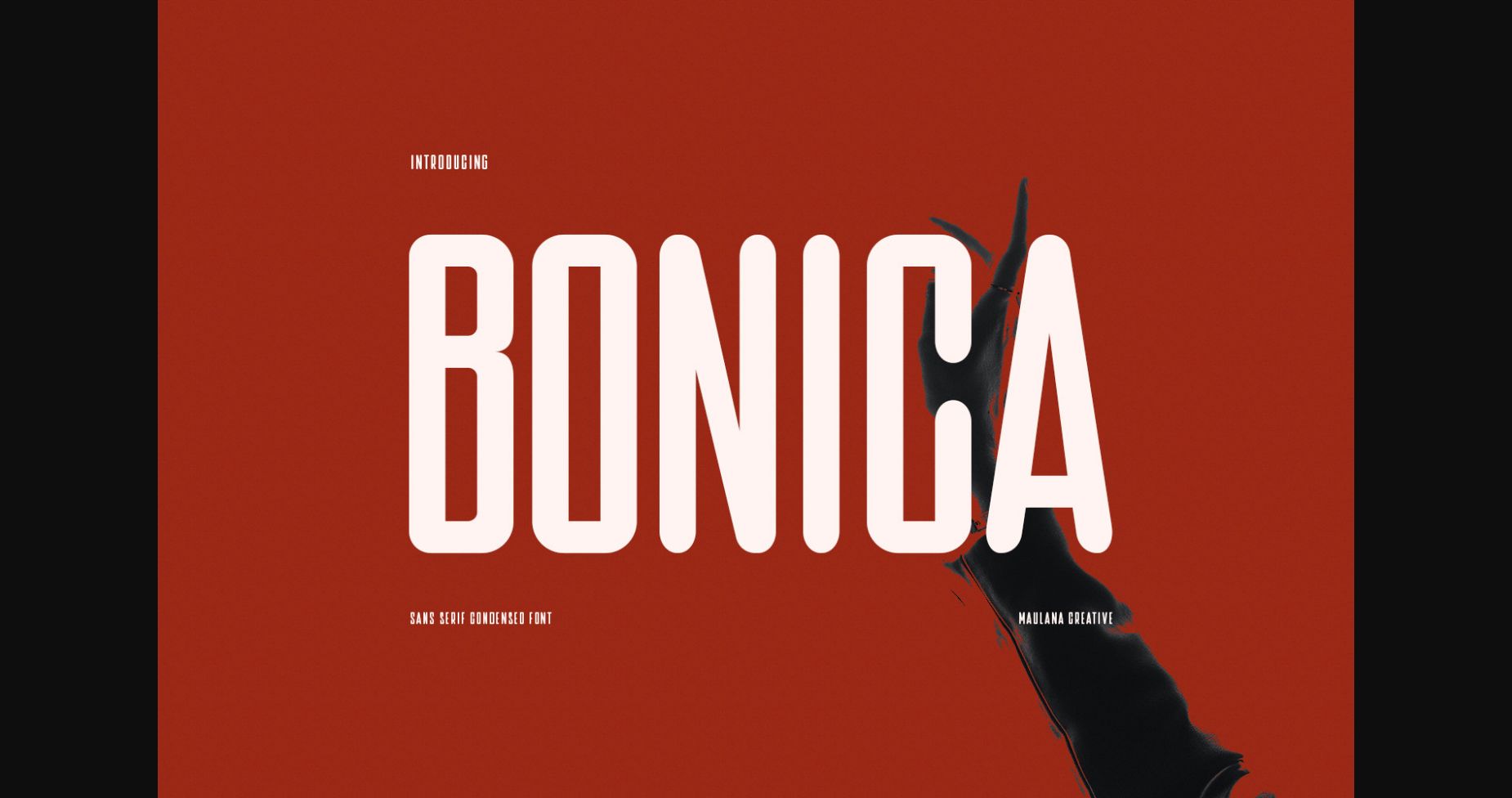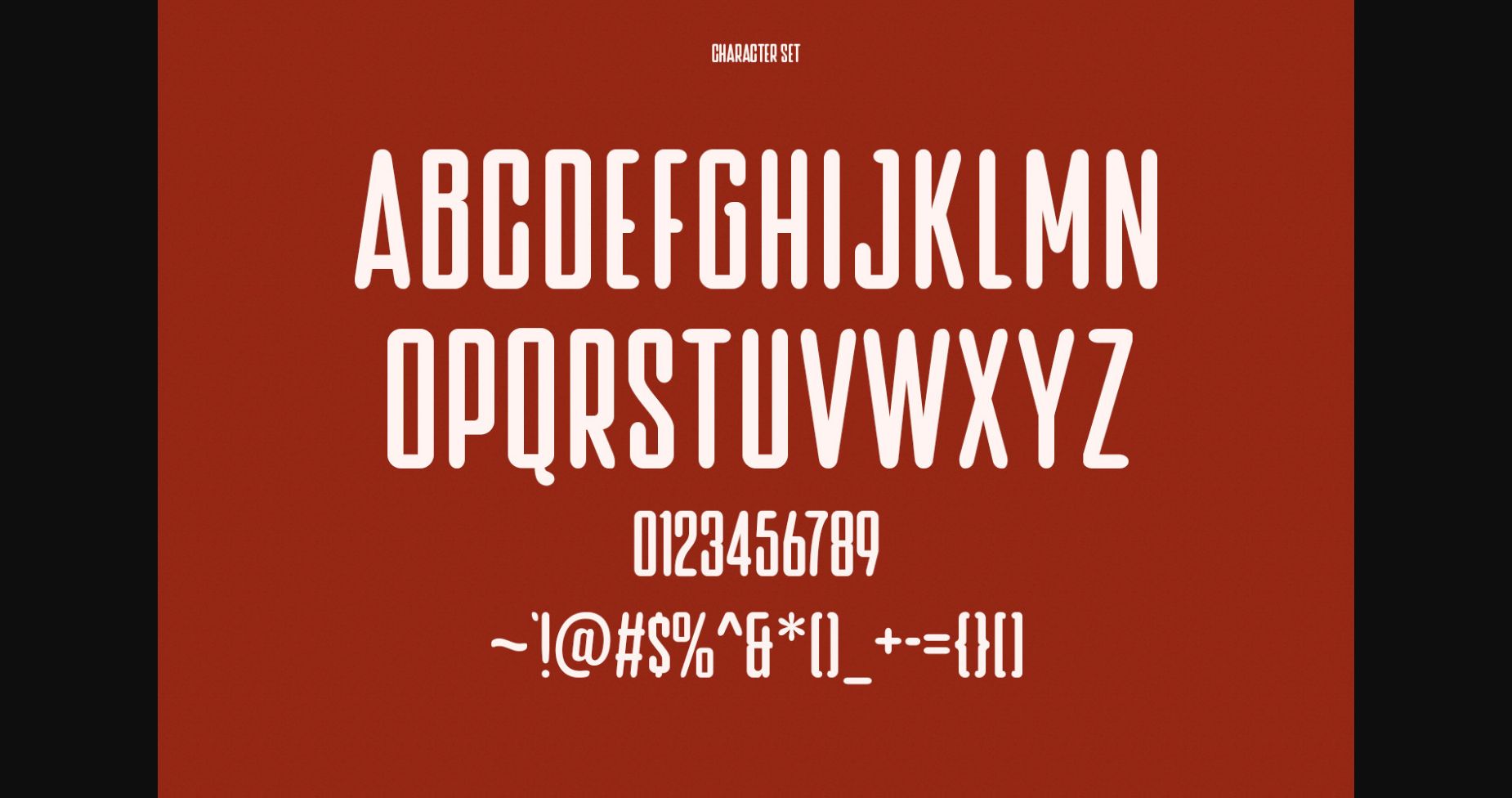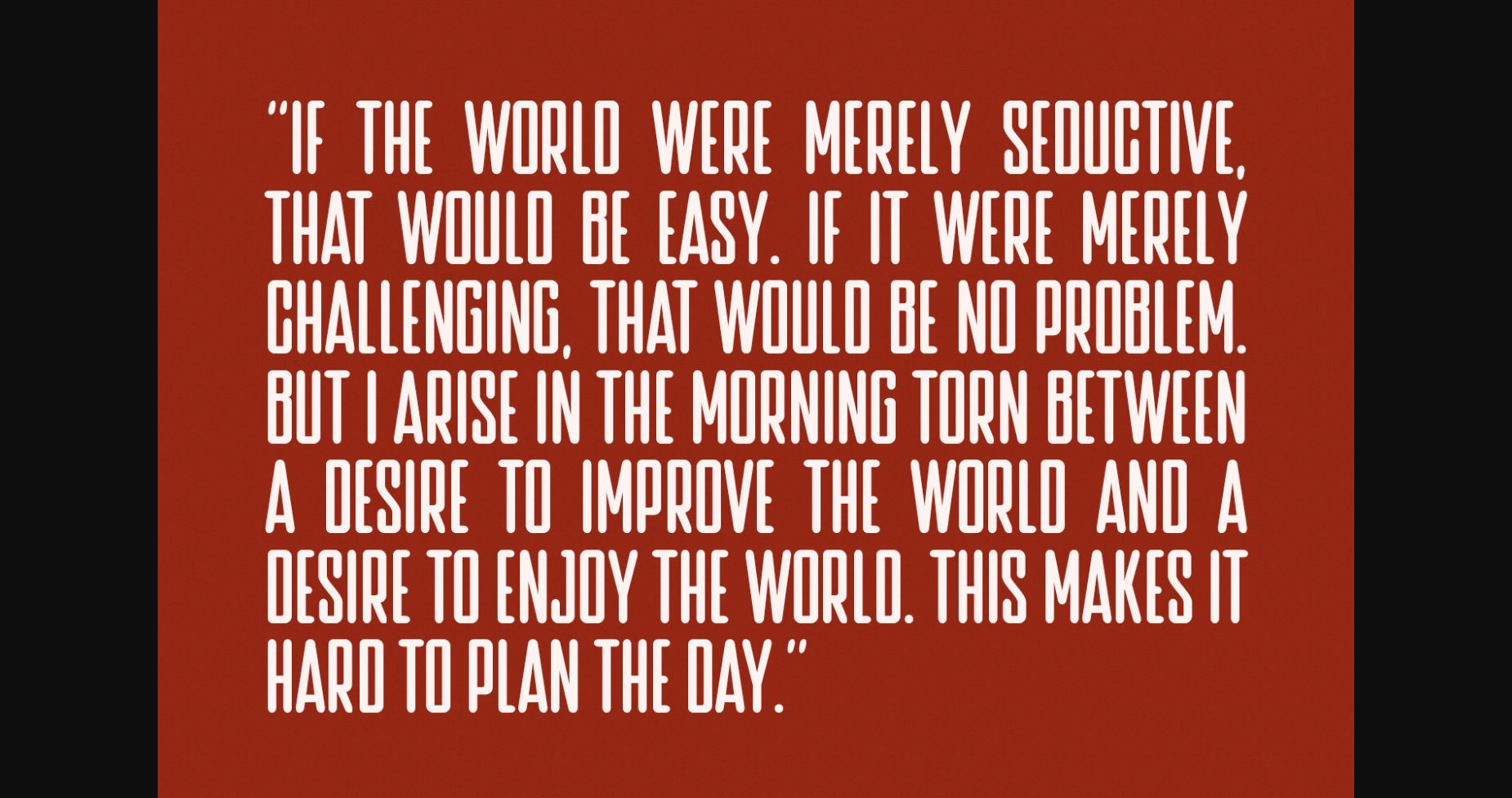
About Bonica Font
Bonica is a casual modern condesned sans serif font. With medium low contrast stroke, fun character with a bit of ligature and alternates to give you extra creative work. Bonica is good for logo design, social media, movie titles, book titles, short text, and even long text, and good for your secondary text together with a sans or serif. Make stunning work with Bonica font!